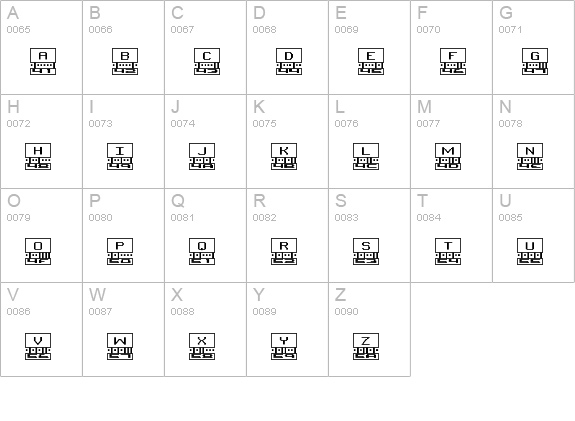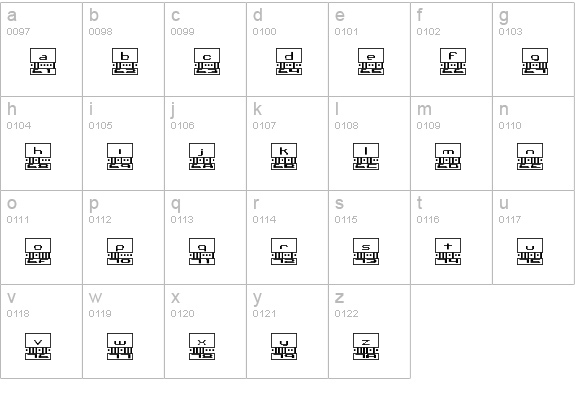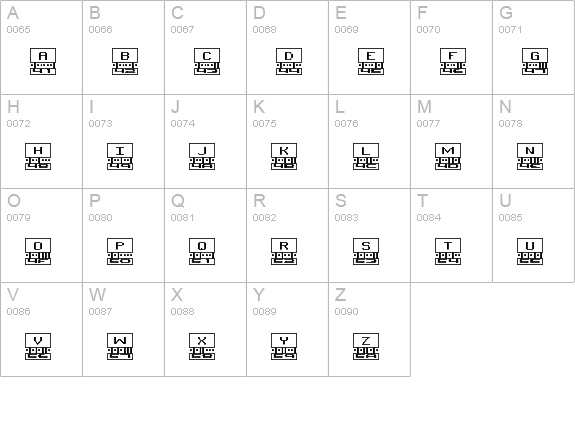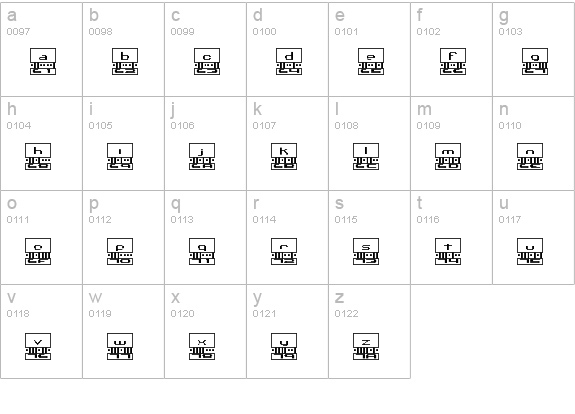
Binary X BRK font is a modern and sleek typeface that combines elements of binary code with a bold and edgy design. With its sharp lines and geometric shapes, this font exudes a futuristic and tech-savvy vibe. The unique combination of binary elements and contemporary styling makes Binary X BRK font stand out in any design project. Best of all, Binary X BRK font is available for free download at FontsMarket.com. Whether you're working on a website, a logo, or any other creative project, this font is sure to make a statement. The versatility of Binary X BRK font allows it to be used in a variety of design contexts, from digital interfaces to print materials. Add a touch of modernity and innovation to your designs with Binary X BRK font, and let your creativity shine with this cutting-edge typeface. Download it now for free and elevate your design projects to the next level.